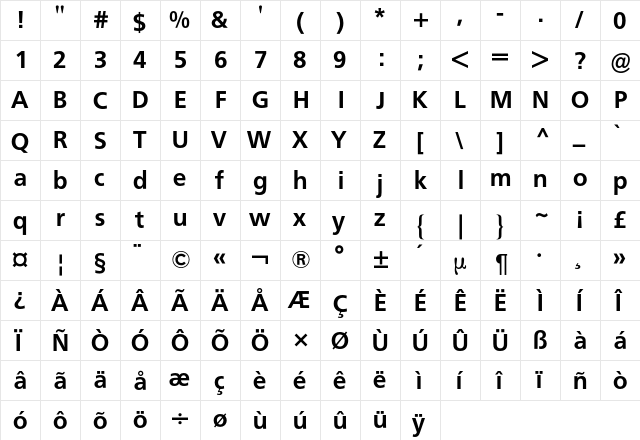
Frutiger BQ Regular
Design Context for Frutiger BQ Typeface
Frutiger BQ is a composed and adaptable typeface that performs quietly and consistently across a wide range of design contexts.